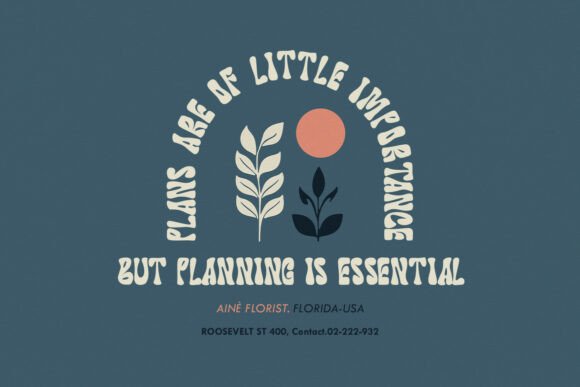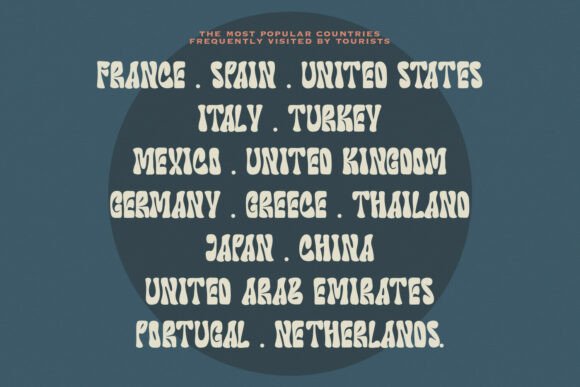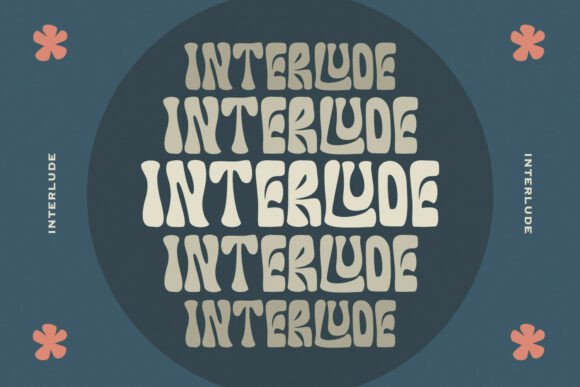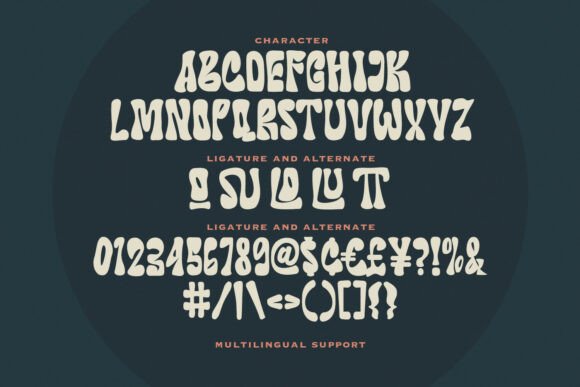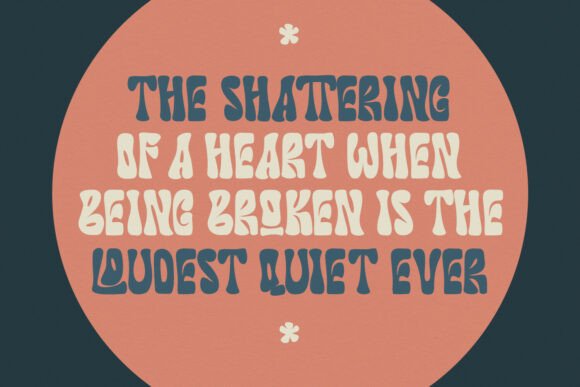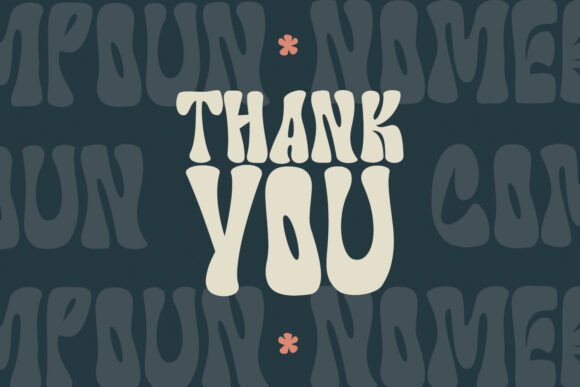
Introduction to Compoun Nomeros Font
Compoun Nomeros | Groovy Psychedelic Revival Take a trip back to the vibrant, experimental era of the 1970s with Compoun Nomeros font.
This retro-inspired display typeface is a celebration of “liquid” geometry and psychedelic flair Featuring heavy, melting letterforms and unexpected negative space, the Compoun Nomeros font captures the spirit of the counter-culture movement with a modern, polished execution.
Key Features of Compoun Nomeros Font